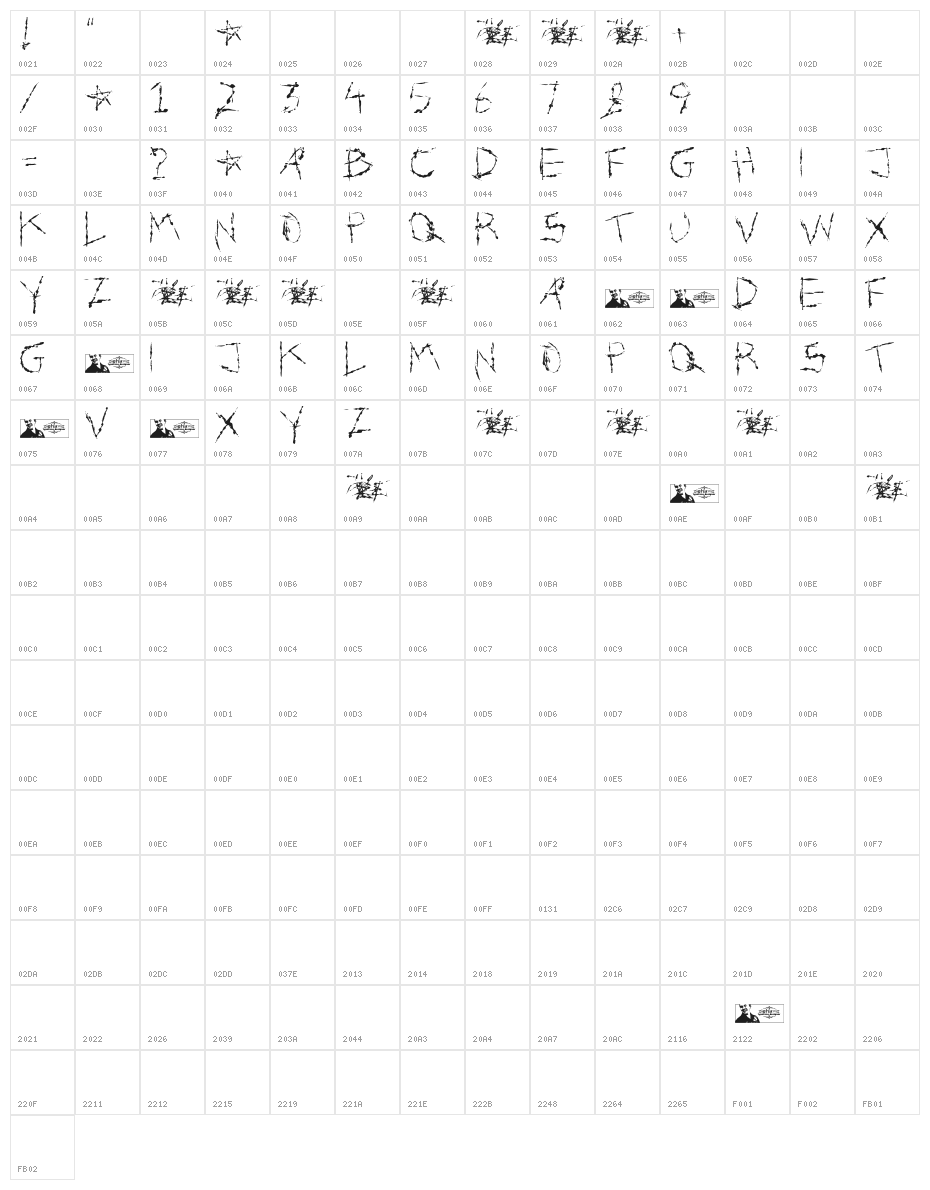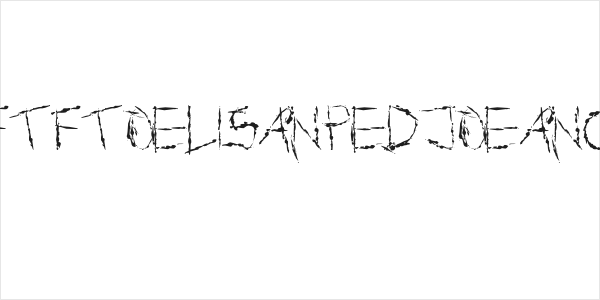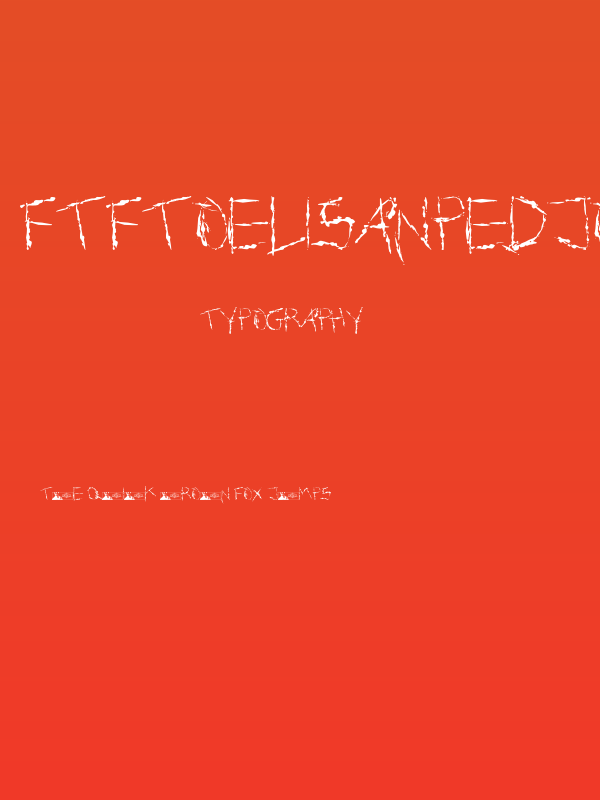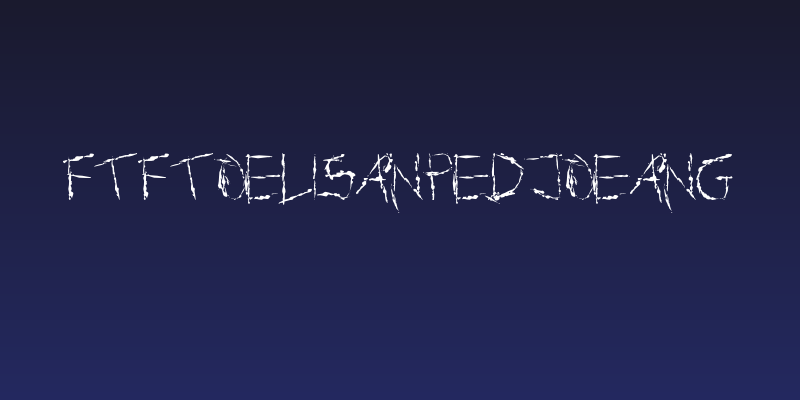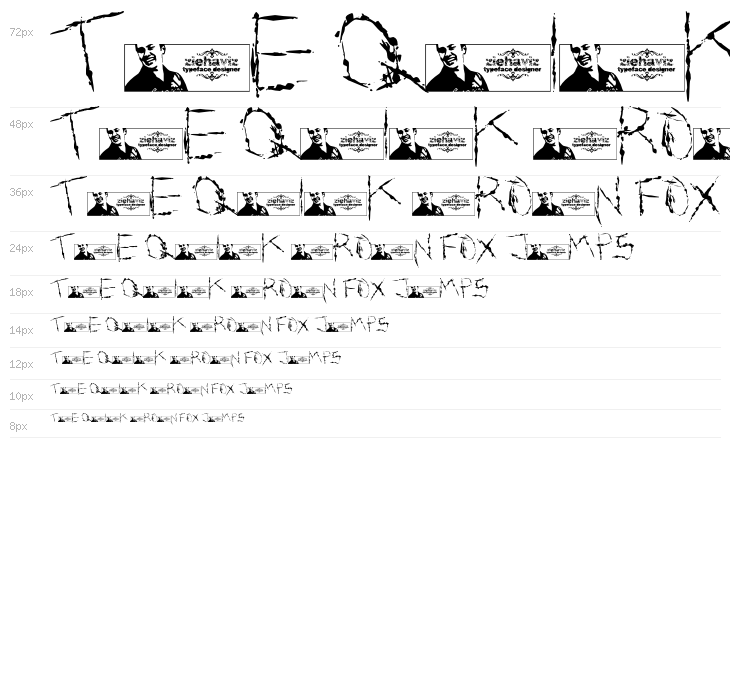
FTFToelisanPedjoeang Font
FTFToelisanPedjoeang Description
This font features a highly decorative and distressed style, reminiscent of graffiti or urban art. The characters are formed with irregular, jagged lines that give a sense of movement and energy. The uppercase and lowercase letters maintain a consistent style, with each character appearing as if it has been hand-drawn with a rough brush or pen. The numbers and special characters follow the same aesthetic, ensuring a cohesive look across all glyphs. This font's unique and edgy appearance makes it stand out, ideal for projects that require a bold and artistic touch.
| Overall Style | Urban, Artistic, Edgy |
| Use Case | Logos, Posters, Album Covers |
| Proposed Projects | Ideal for street art designs, music album covers, edgy posters, and creative branding projects. |